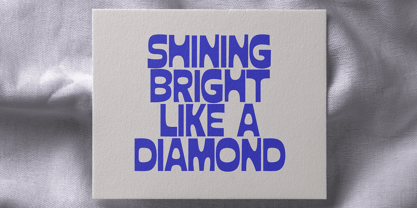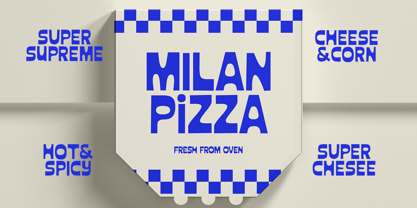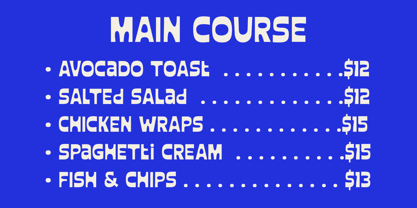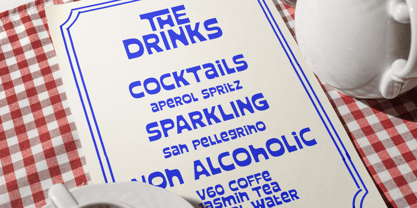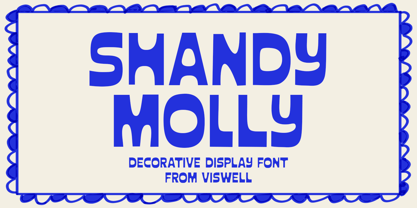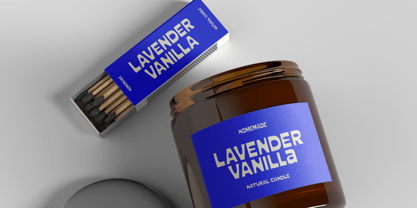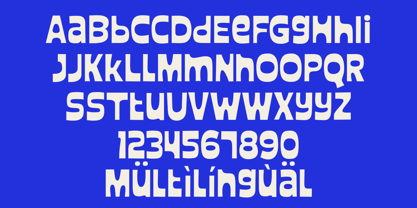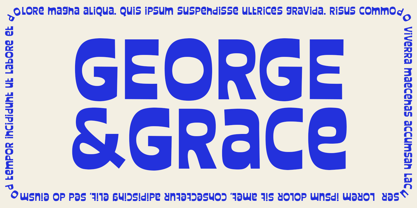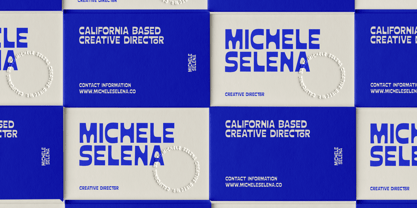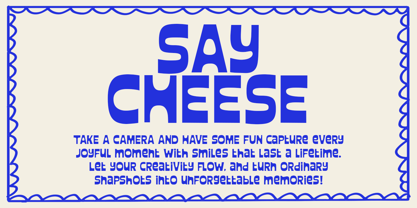
Shandy Molly
Shandy Molly is a bold and decorative display font designed to bring character and creativity to your projects. With its playful and unique letterforms, it’s perfect for eye-catching headlines, branding, packaging, posters, and more. Whether you're looking to add a quirky touch or a bold statement, Shandy Molly offers a versatile style that stands out in any design. Created with modern aesthetics in mind, this font is ideal for both print and digital applications